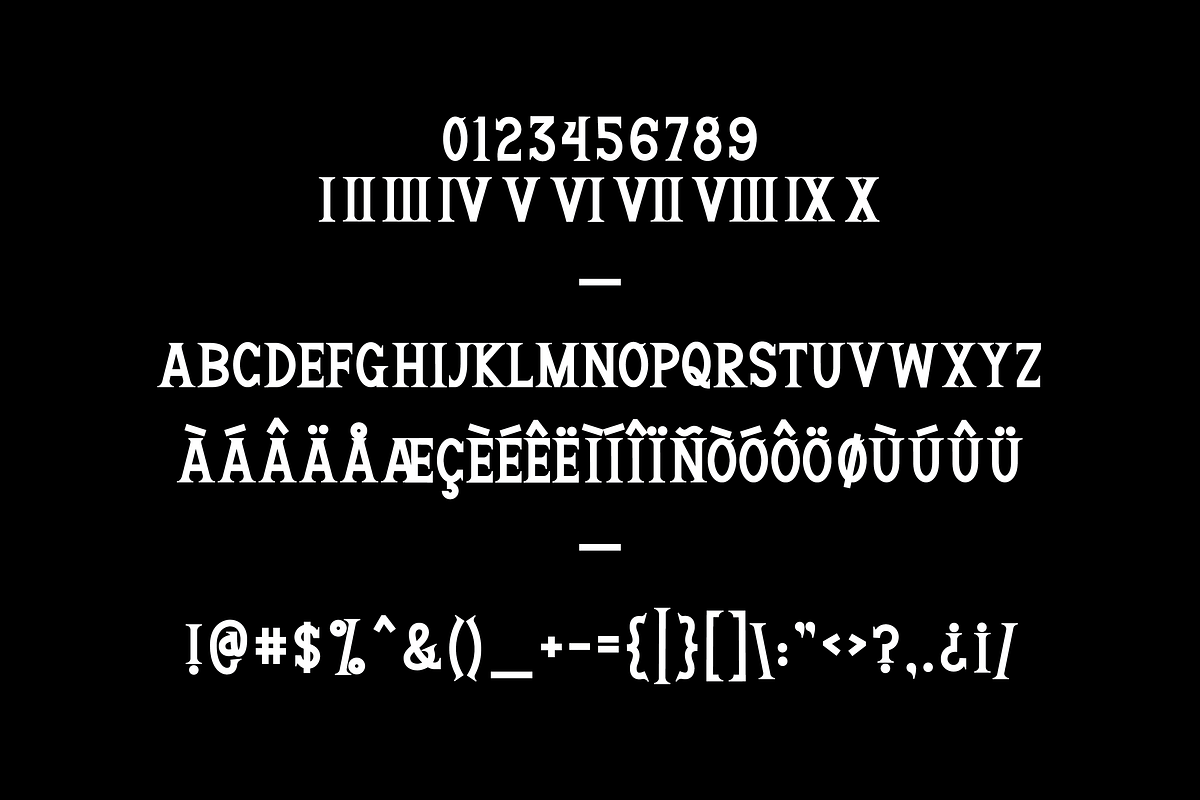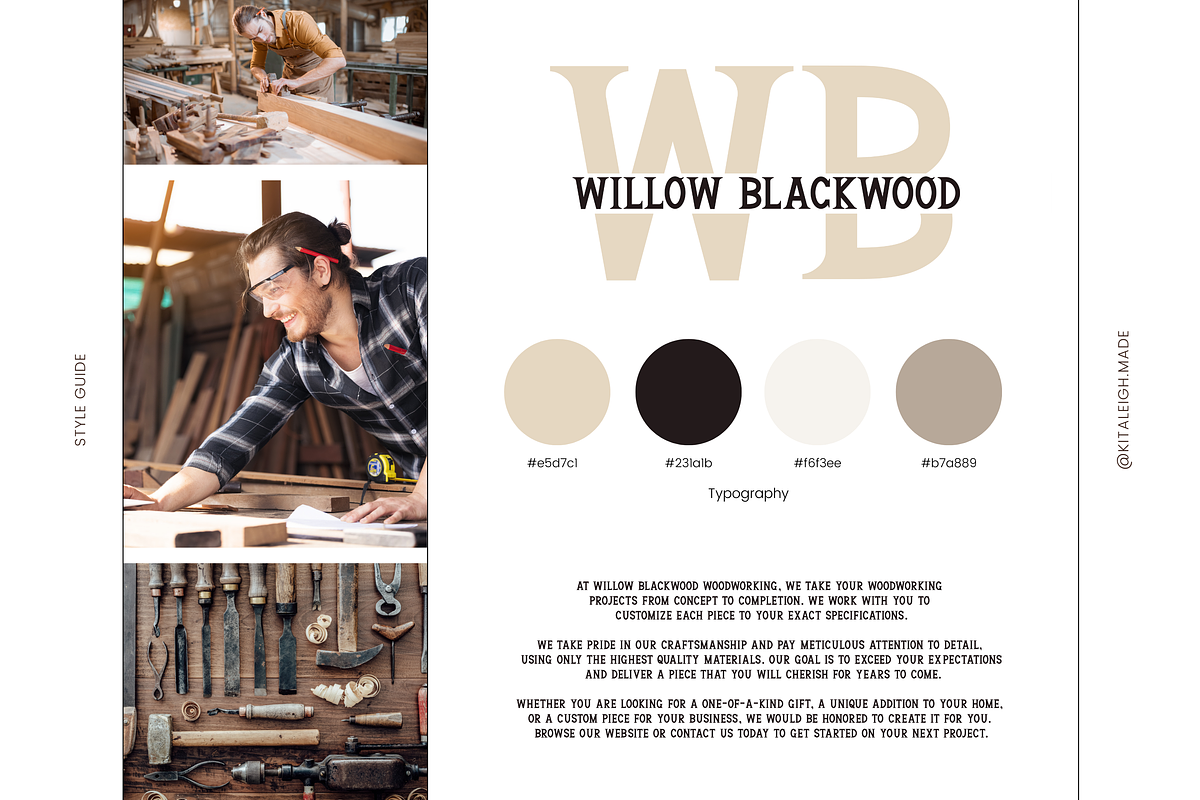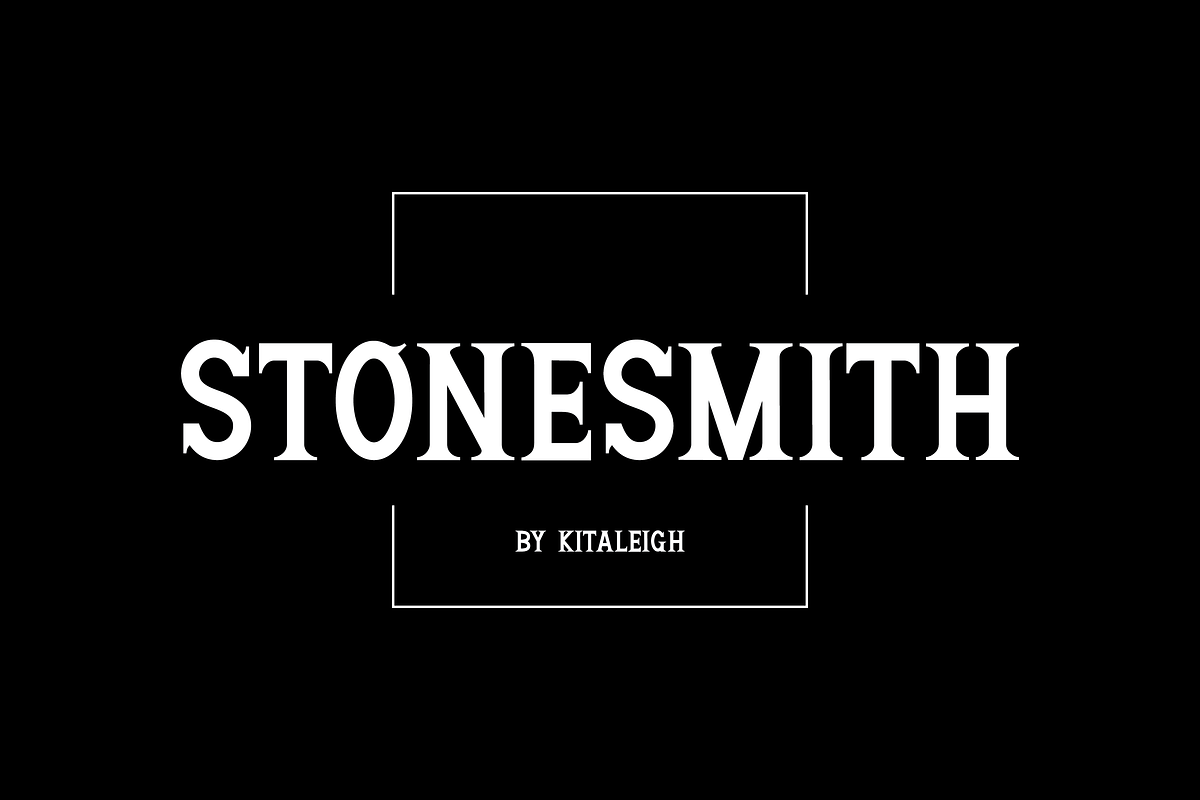
Stonesmith
Get creative with "Stonesmith"! This modern and stylish font offers a unique look for any project. Its bold lines and strong lettering will make your designs stand out from the rest.